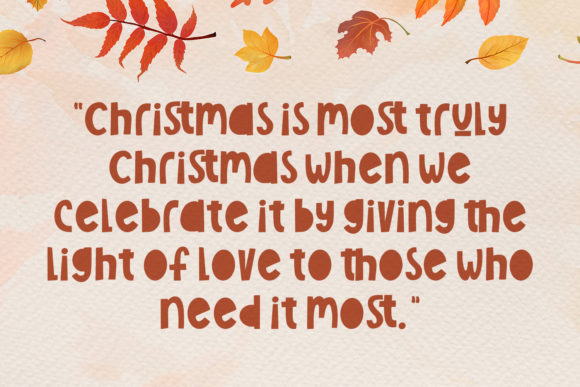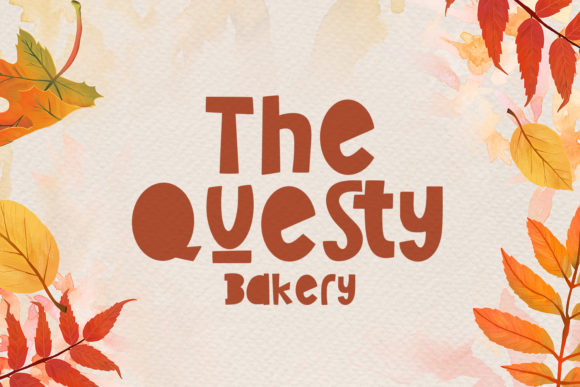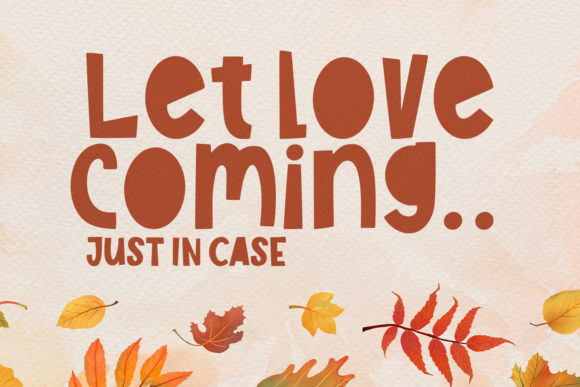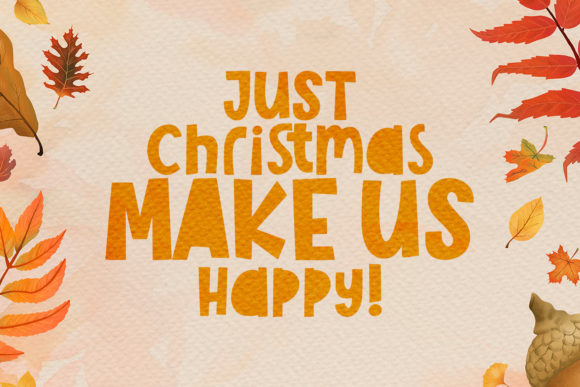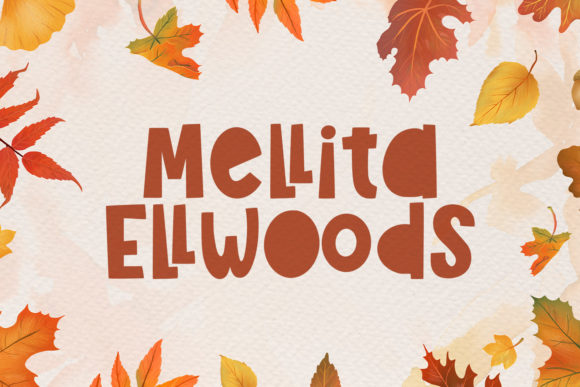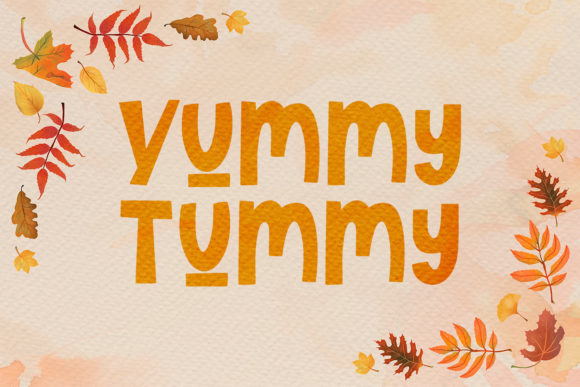
Introduction to Pluckypot Font
Pluckypot is a cute display font perfect for logo design, social media posts, movie titles, books titles, and many more.